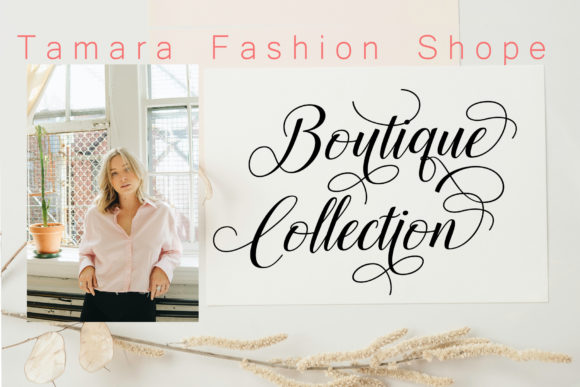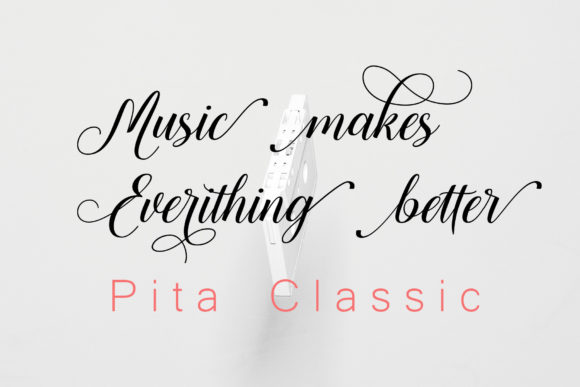
The Angeli Font
db-ku.com - Script & Handwritten -- The Angeli is a romantic script typeface. It has a modern and elegant style which is perfect for every design that needs a handwritten feel. This font is PUA encoded, which means you can access all of the glyphs and swashes with ease!